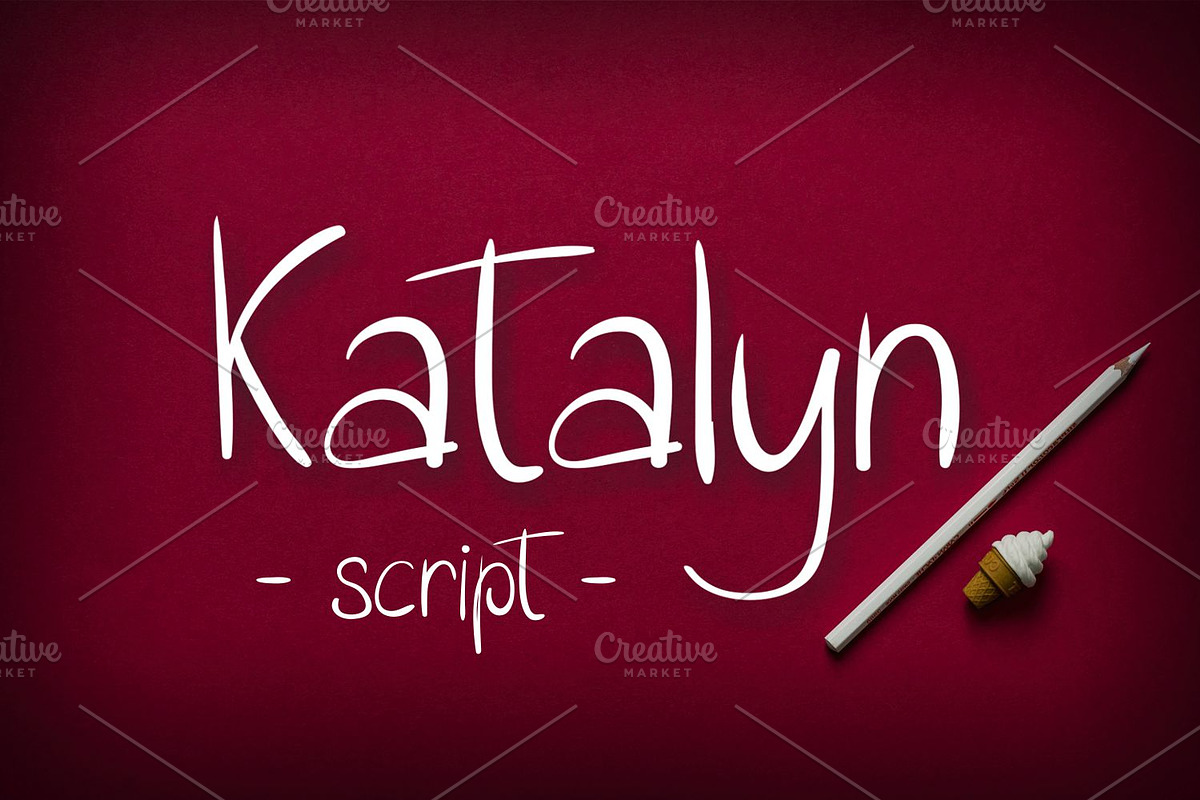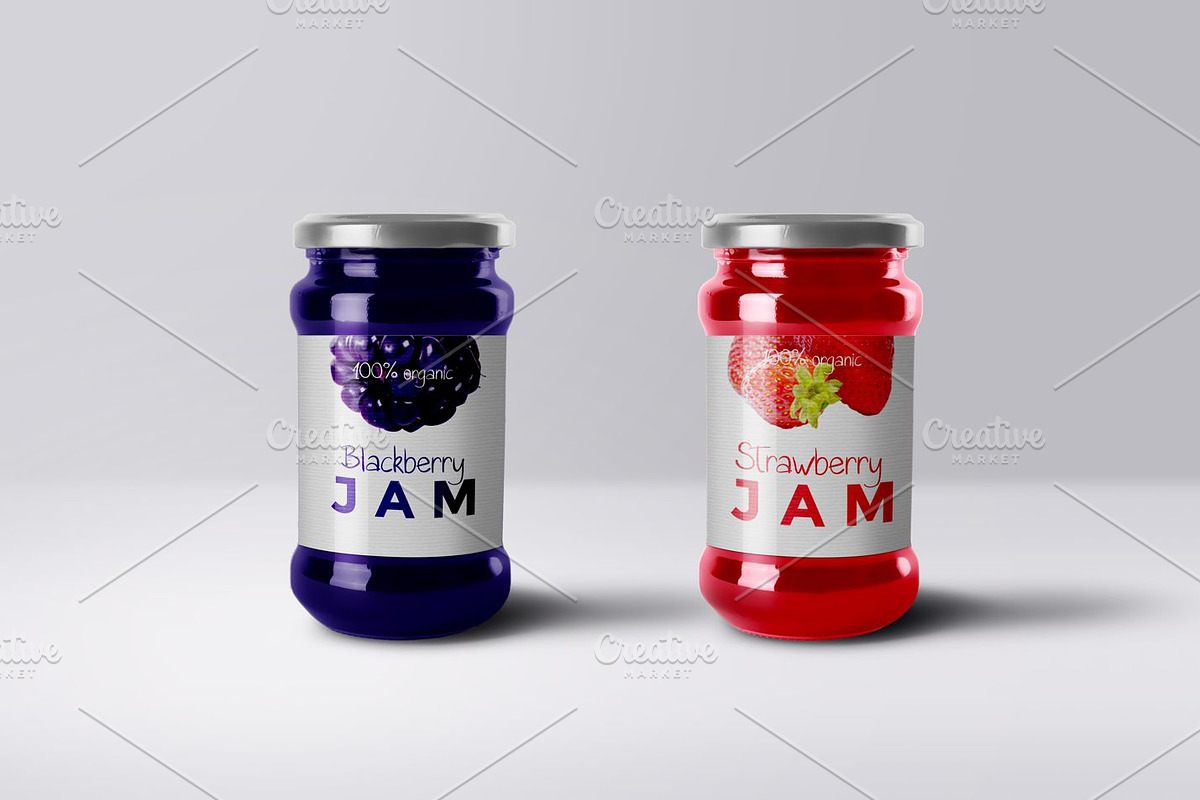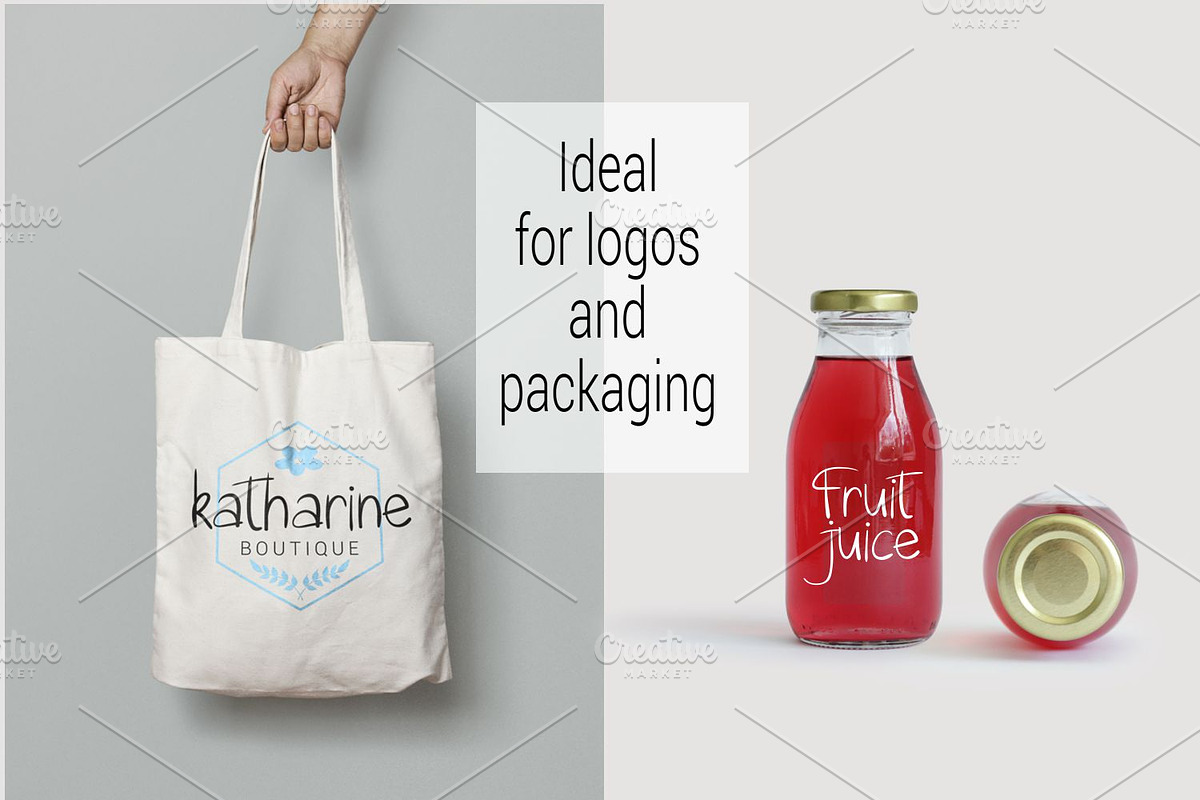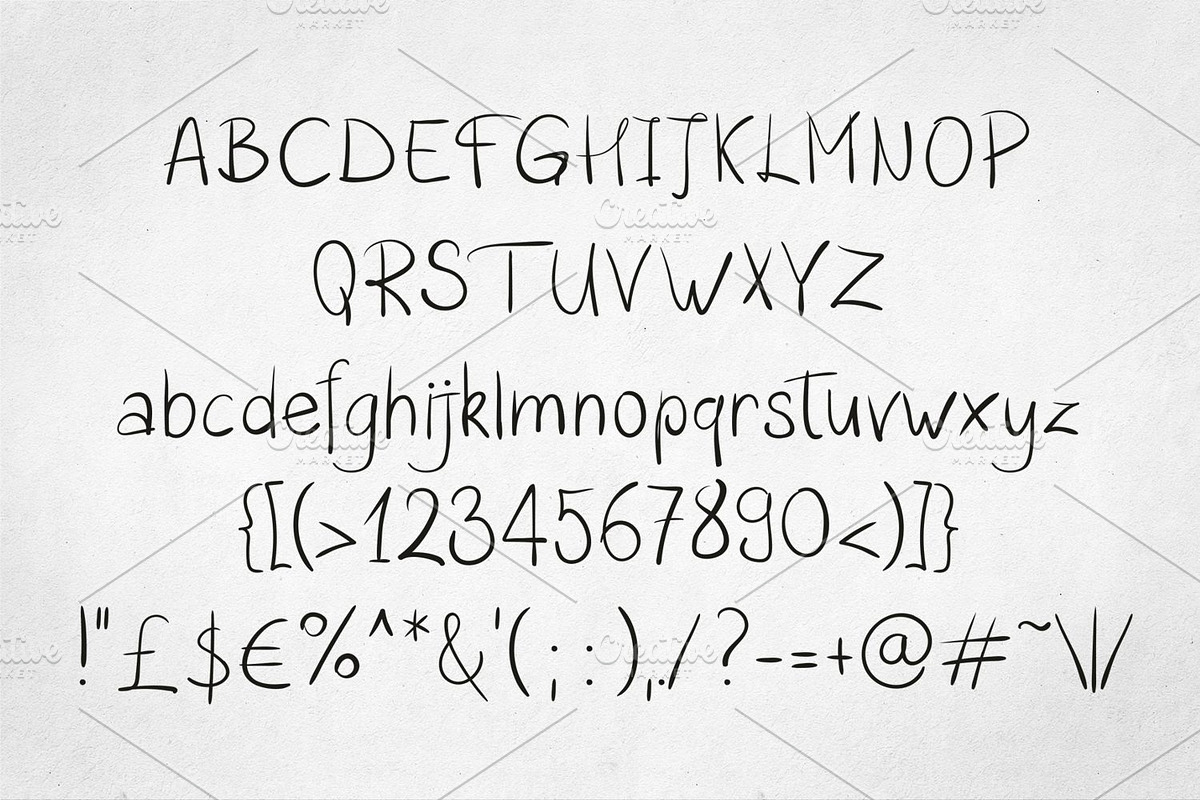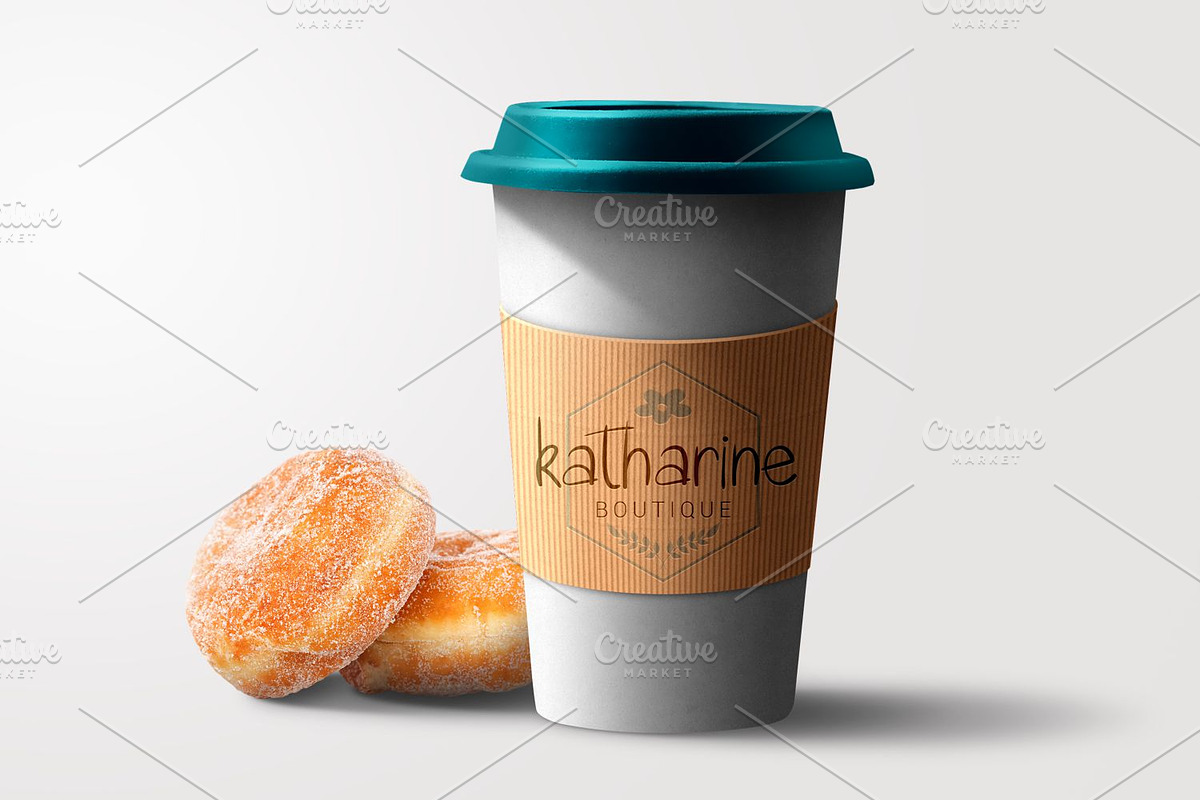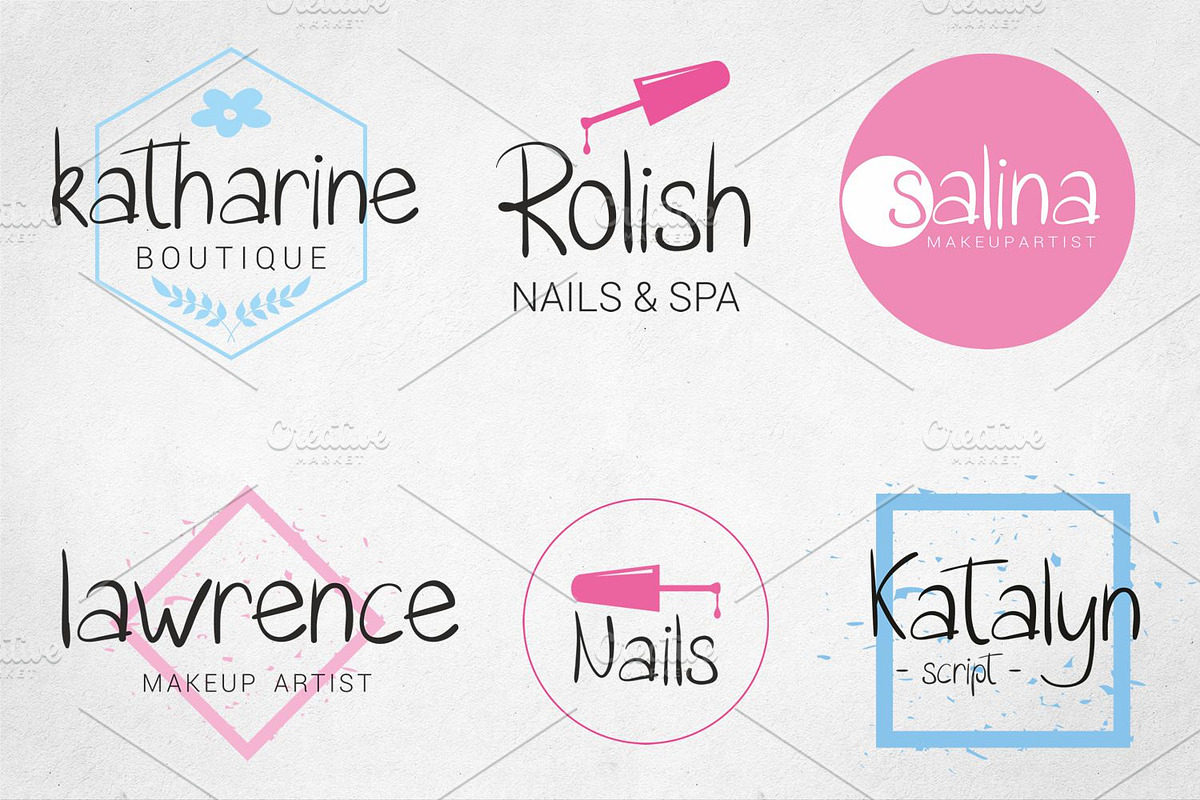
Katalyn
Katalyn is ideal for logos, branding, packaging and more.
Katalyn by Digital Typeface Studio fits naturally into Branding, posters, packaging, typography.